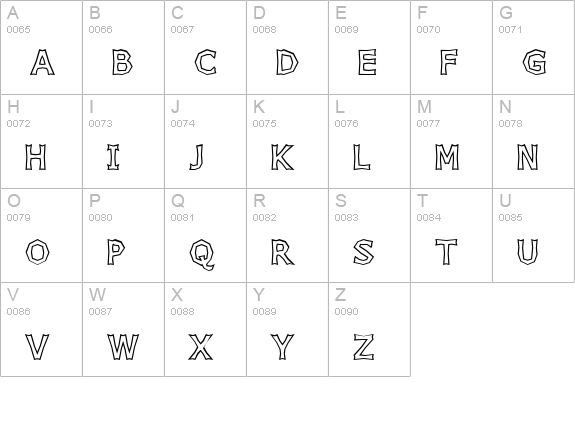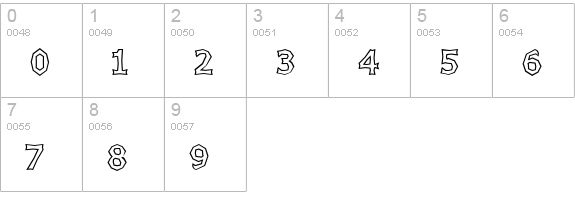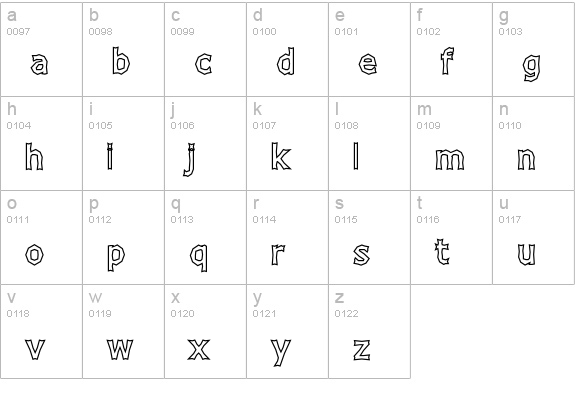
Chizzler Bold Outline is a strong, high-contrast variant in the Chizzler typeface family \xE2\x80\x94 well suited to headlines, attention-grabbing titles, and strong calls-to-action.
Chizzler Bold Outline font is a striking and eye-catching typeface that commands attention with its bold and dynamic appearance. The unique outline design gives a modern and edgy touch to any project, making it perfect for headlines, posters, and branding materials. The sharp lines and distinct shapes of this font make it stand out from the crowd and add a touch of sophistication to any design. What's even better is that Chizzler Bold Outline font is available for free download at FontsMarket.com. This means you can easily access this stylish font and use it in your projects without any cost. Whether you're a designer looking to add a bold statement to your work or a business owner wanting to enhance your brand's image, Chizzler Bold Outline font is a versatile choice that will elevate your designs to the next level. Download it today and unleash your creativity with this sleek and modern typeface.